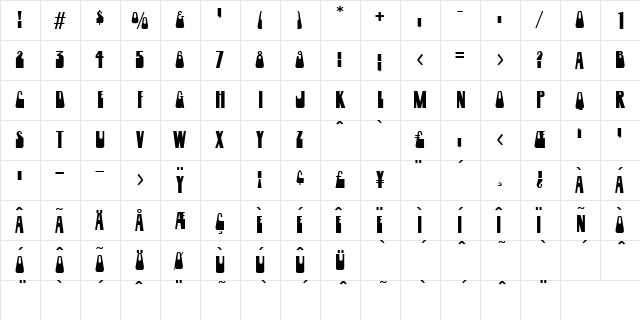
Pelikan Regular
Design Context for Pelikan Typeface
Pelikan is a composed and adaptable typeface that performs quietly and consistently across a wide range of design contexts.